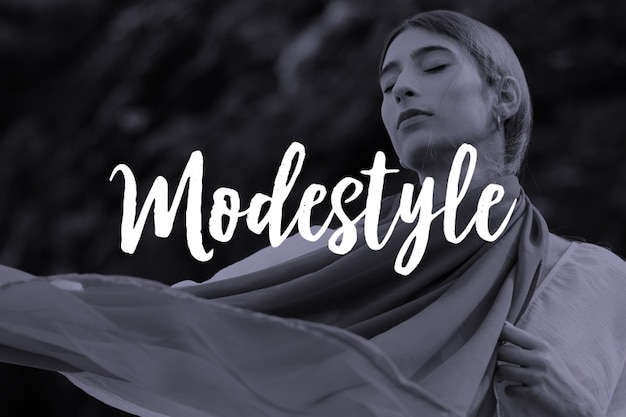
Modestyle
Modestyle Font
Bold and elegant, the Modestyle font was made to give a unique handwritten style to your creations. This font is perfect for taking your projects to the next level, especially suitable for signatures and beauty logos. Download it now and start designing!